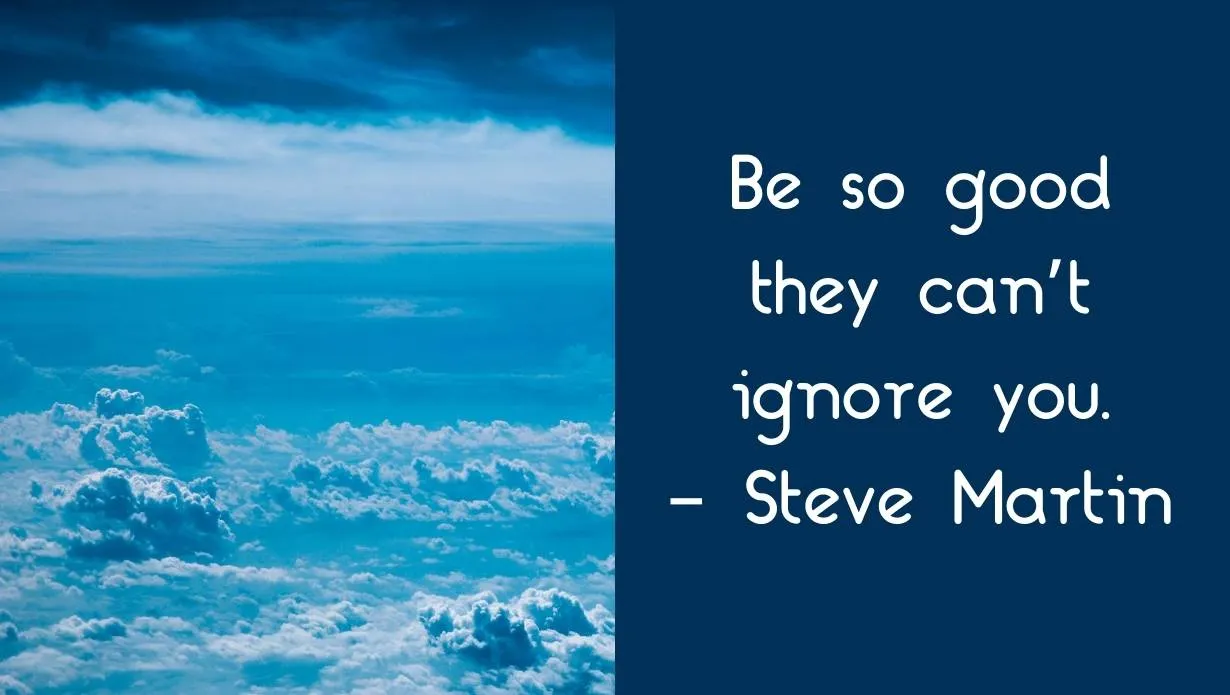
Now, we are introducing an amazing and wonderful typeface style. This font style name is Nord Font. This attractive font style belongs to the modern Sans Serif typeface family. This stylish and eye-catching typeface was designed by a famous graphic designer named Fabian Widmer.
Nord Font Family
| Name | Nord Font |
| Designer | Fabian Widmer |
It was published by Letterwerk. This typeface comes up with seven different weights as well as light, regular, bold, black, medium, book, thin.